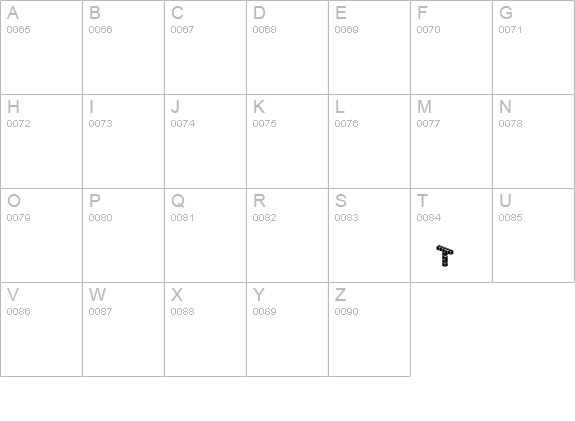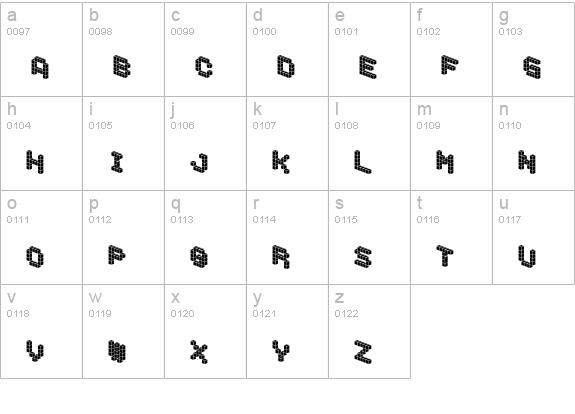
DemonCubicBlockFont Tile Font Details
Introducing the mesmerizing DemonCubicBlockFont Tile font, a truly unique and captivating typography experience that will take your designs to a whole new level. This extraordinary font features intricate cubic block-style lettering, meticulously crafted to add depth and dimension to any project. With its bold and commanding presence, DemonCubicBlockFont Tile font demands attention and delivers a striking visual impact. Each character is exquisitely designed with sharp edges and geometric precision, creating a powerful and edgy aesthetic that is sure to make a lasting impression. But what sets this font apart is not just its stunning visual appeal, but also its availability as a free download. Yes, that's right! DemonCubicBlockFont Tile font is freely accessible and ready to enhance your designs without any cost. Whether you're working on graphic designs, logos, branding, posters, or any other creative project, DemonCubicBlockFont Tile font offers endless possibilities. Its versatility allows you to experiment with different styles and layouts, unleashing your creativity and pushing the boundaries of design. To download this exceptional font, simply visit FontsMarket.com, your go-to destination for high-quality and freely available fonts. Embrace the power of DemonCubicBlockFont Tile font and let it elevate your designs to new heights, leaving a lasting impression on your audience. Get ready to unleash your creativity and explore the world of DemonCubicBlockFont Tile font. Download it for free at FontsMarket.com today and witness the magic it brings to your designs.